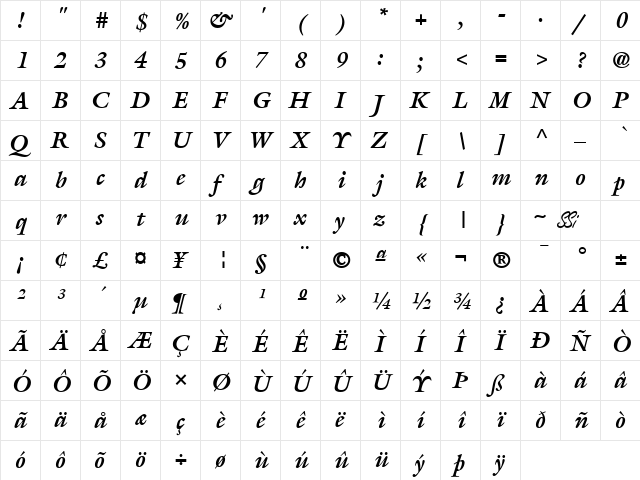
Acanthus SSi Bold Italic Font Preview
Design Context for Acanthus SSi Typeface
Acanthus SSi takes a measured approach to typography — its balanced proportions and neutral character make it a reliable workhorse for both digital and print work. Its italic angle brings a sense of urgency and motion to the letterforms. The heavy weight commands attention and anchors typographic hierarchies.
Pro Tip: Use Acanthus SSi for emphasis, pull quotes, and subheadings where its slanted energy can add rhythm to the layout.